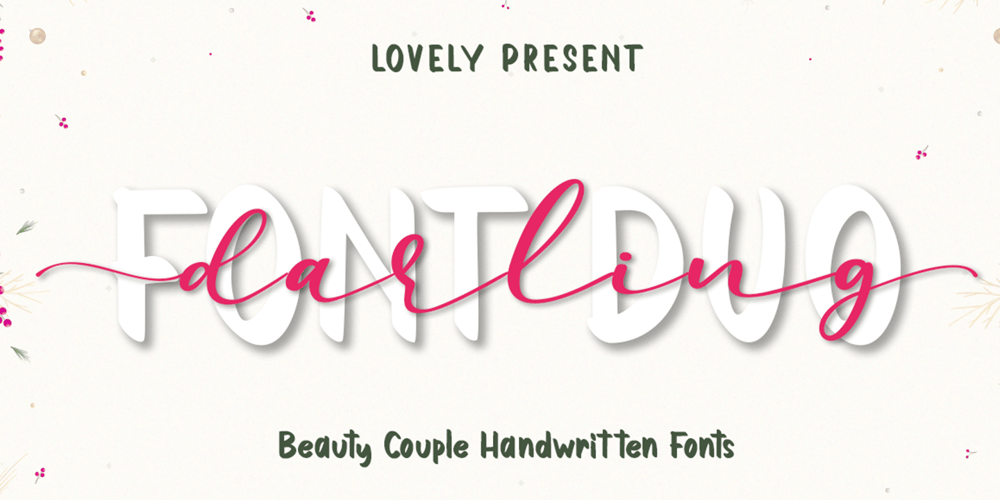
Darling Duo Script Font Family was designed by Sarwo Edhi Prayitno and published by Haksen. Darling Duo Script contains 2 styles and family package options. Darling Duo include two font styles with full set of handwritten style draw for script and cute style letters for sans. Numerals, a large range of punctuation and ligatures giving realistic hand-lettered style.In order to use the beautiful ligatures for script also all uppercase for sans serif, you need a program that supports OpenType features such as Adobe Illustrator CS, Adobe Photoshop CC, Adobe Indesign and Corel Draw.Thanks and have a great day :)Haksen